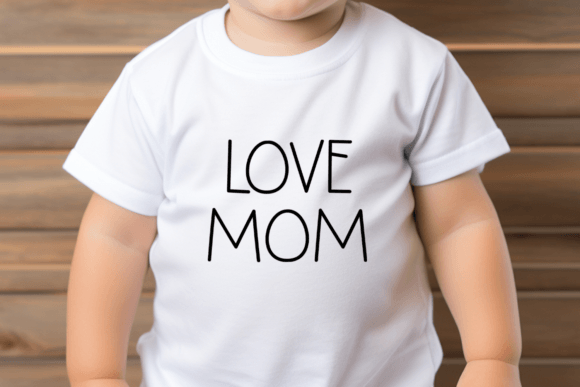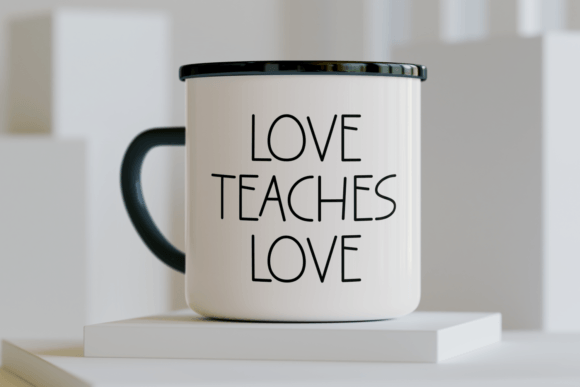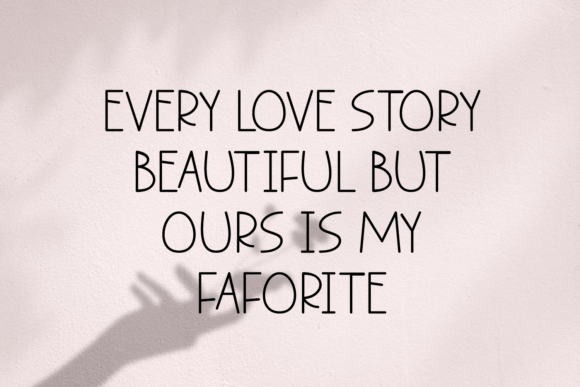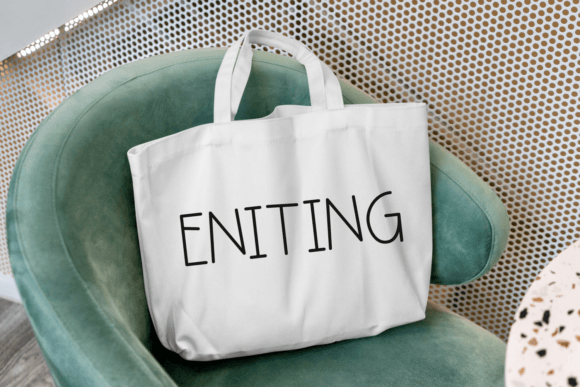
Introduction to Missing Ration Font
Introducing “Missing Ration,” a captivating display font that effortlessly blends contemporary style with a touch of mystery.
Its unique design adds intrigue to your text, making it perfect for headlines, posters, or any creative project where you want to make a bold statement Let “Missing Ration” fill the gaps in your design with its distinctive charm and modern flair.
Key Features of Missing Ration Font
Why Choose Missing Ration Font?